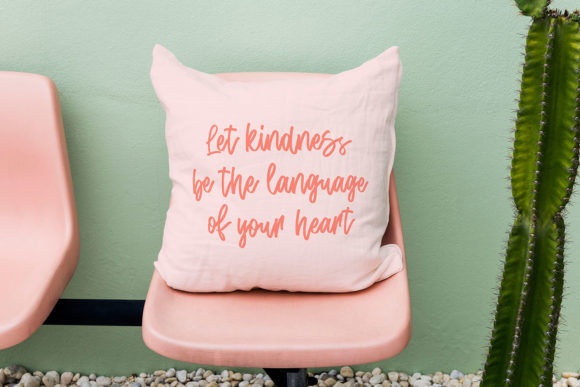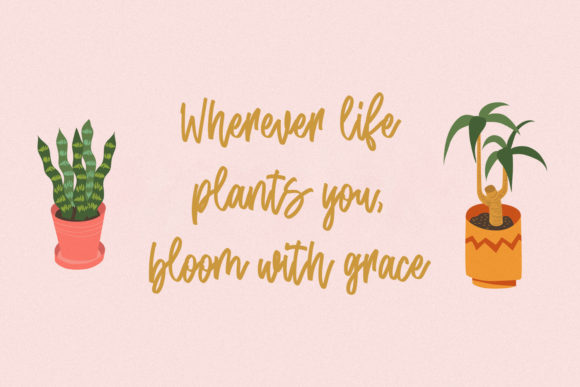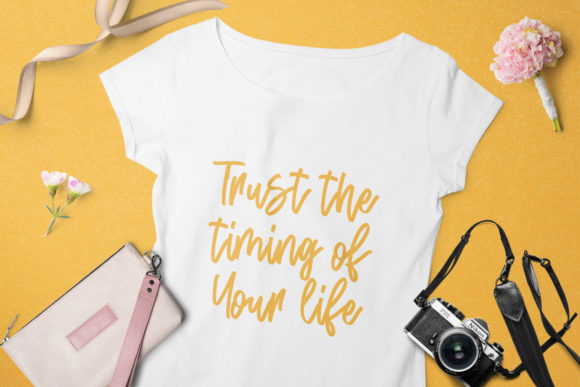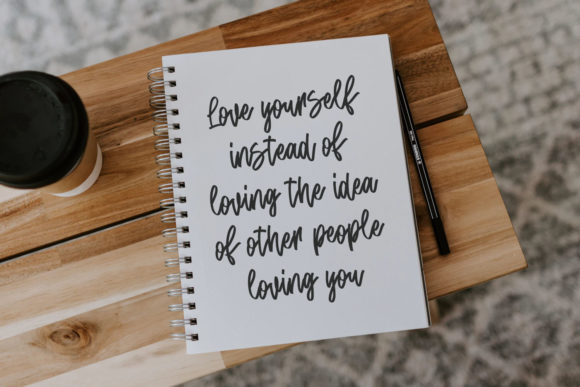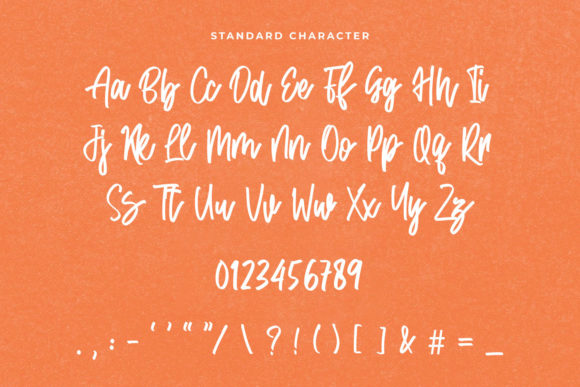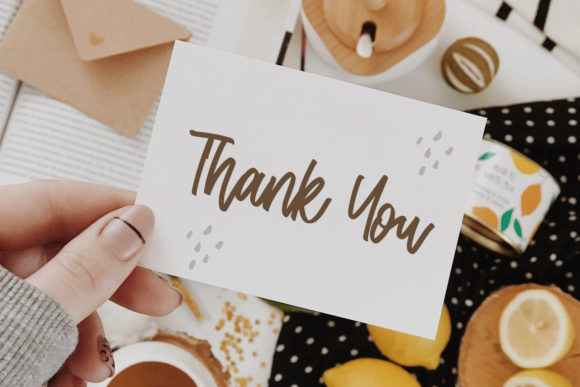
Introduction to Honey Jones Font
Remember that moment when a spark of creativity hits, and you envision the perfect design for your next project? The thrill of bringing your idea to life is what drives designers like you to push the boundaries of imagination. And what better way to add that extra oomph to your creative project than with a beautiful, handwritten font?
Enter the Honey Jones Font – a stunning, high-quality design resource that’s sure to elevate your work. This free download is perfect for designers looking to add a touch of authenticity to their designs. With its natural, flowing script, the Honey Jones Font is ideal for creating a warm and inviting atmosphere, whether you’re working on a branding project or crafting a beautiful piece of art with a transparent background.
Whether you’re a seasoned pro or just starting out, the Honey Jones Font is a valuable addition to your design toolkit. Its unique charm and style make it a must-have for any designer looking to take their creative projects to the next level.
Key Features of Honey Jones Font
- High-quality, professional font suitable for various creative projects and design resources.
- Unique characteristic: Elegant, cursive script with a touch of vintage charm, perfect for wedding invitations, quotes, and other creative projects.
Honest Review: Honey Jones Font
I recently had the chance to work with the Honey Jones Font, and I’m excited to share my thoughts on this design resource. As a designer, I’m always on the lookout for high-quality fonts that can elevate my creative projects.
What works well: ✨ The Honey Jones Font is incredibly versatile and can be used for a variety of projects, from modern branding to vintage-inspired designs. The font is available for free download, making it an excellent choice for designers on a budget. The transparent background is also a nice touch, allowing for easy customization.
What doesn’t: ⚠️ While the font is high quality, it can be a bit difficult to read at smaller sizes. This may be a limitation for designers who need to use the font for body text or other small-scale applications.
Overall, I’m impressed with the Honey Jones Font. It’s a solid choice for designers who need a high-quality font for their creative projects. Just be mindful of the limitations, especially when it comes to font size.
- Can be used for a variety of design projects
To get the most out of the Honey Jones Font, use it in combination with a transparent background to create a high-quality design. You can also use it in a variety of creative projects, such as logos, brochures, and social media graphics.
The Honey Jones Font is commonly used in design projects that require a unique and stylish font. It’s perfect for creating eye-catching logos, branding materials, and marketing materials. The font’s high-quality design makes it a great choice for any creative project.